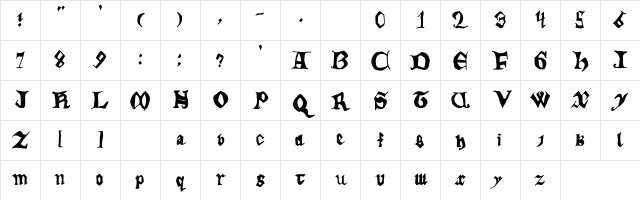
drunkmonk Regular
Design Context for drunkmonk
drunkmonk is a composed and adaptable typeface that performs quietly and consistently across a wide range of design contexts.